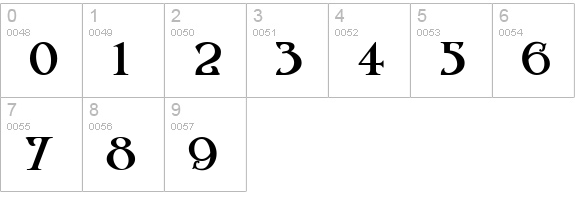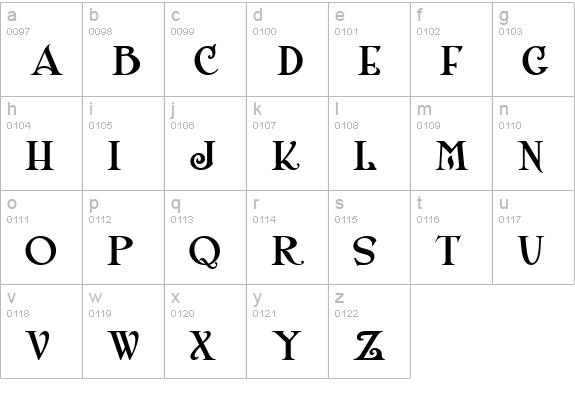
ShangriLaNFSmallCaps Font Details
ShangriLaNFSmallCaps is a stunningly elegant font that exudes sophistication and class. With its unique combination of sharp edges and flowing curves, this font effortlessly captures attention and adds a touch of luxury to any design project. What sets ShangriLaNFSmallCaps apart is not only its impeccable design, but also the fact that it is completely free to download. Yes, you read that right - this remarkable font is freely available to download at FontsMarket.com. Now, you can enhance your creative endeavors without having to worry about spending a dime. Whether you're working on a professional presentation, designing a logo, or creating eye-catching marketing materials, ShangriLaNFSmallCaps is the perfect choice to make a lasting impression. Its small caps style adds a touch of uniqueness and sophistication, making your text stand out from the crowd. The versatility of ShangriLaNFSmallCaps knows no bounds. It seamlessly complements various design styles, from modern and minimalist to vintage and classic. Its clean lines and balanced proportions create a harmonious visual experience that will captivate your audience. Download ShangriLaNFSmallCaps today and unlock the door to endless creative possibilities. Let this font elevate your designs to new heights and leave a lasting impression. With its free availability at FontsMarket.com, there's no reason to wait - start exploring the beauty and elegance of ShangriLaNFSmallCaps now.